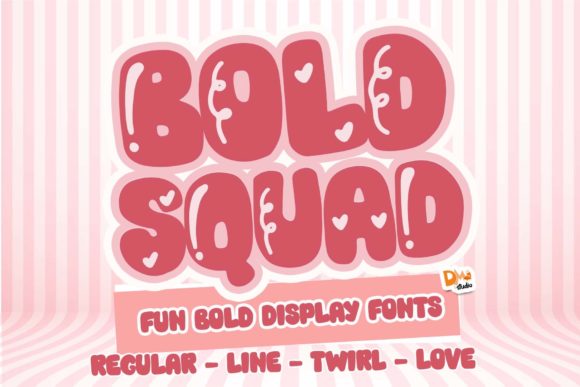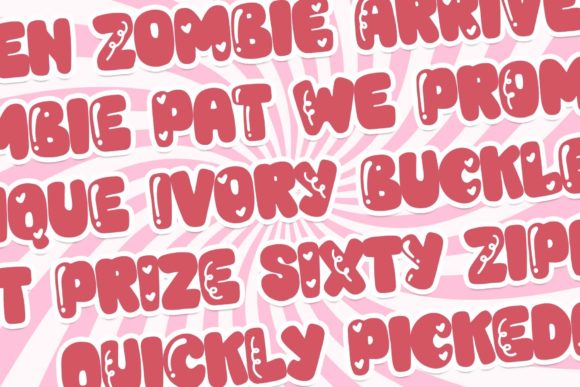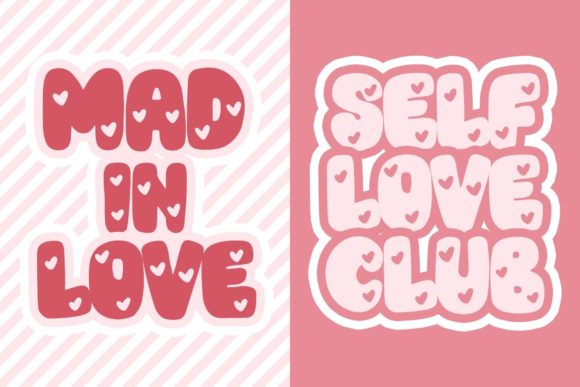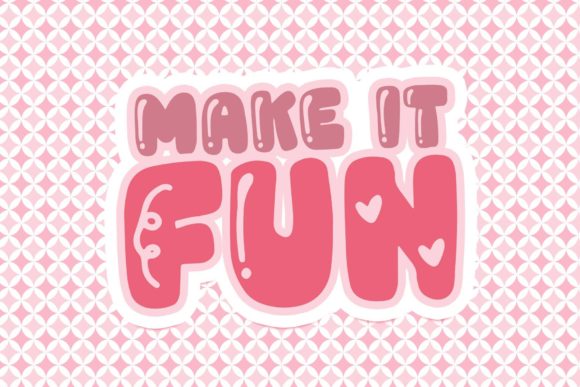
Bold Squad Font: Playful Display Fonts for Cute Designs!
About the Bold Squad Font
Crafted with precision, the Bold Squad Font is ready to bring your ideas to life. Bold Squad is a collection of four bold display fonts. It’s fun, comical, and versatile for all of your projects.
Bold Squad excels as a headline font for posters, branding projects needing a strong visual impact, and packaging designs where a playful yet confident message is desired. Its bold nature makes it unsuitable for body text or UI elements where readability at smaller sizes is crucial. Long paragraphs set in Bold Squad will be difficult to read.
The font’s core personality is bold and playful, lending itself to projects targeting younger demographics or brands with a fun, energetic image. Consider pairing it with a clean sans-serif like Open Sans for body copy or a more geometric sans-serif for a modern, balanced feel. For a more contrasting approach, a delicate script font could add a touch of elegance to balance the boldness.
Avoid using Bold Squad in situations requiring high readability over short distances or in contexts demanding subtlety or sophistication.
Bold Squad Font Usage Examples
Bold Squad Font Example